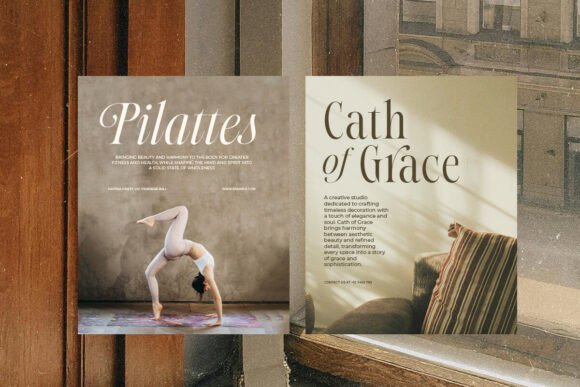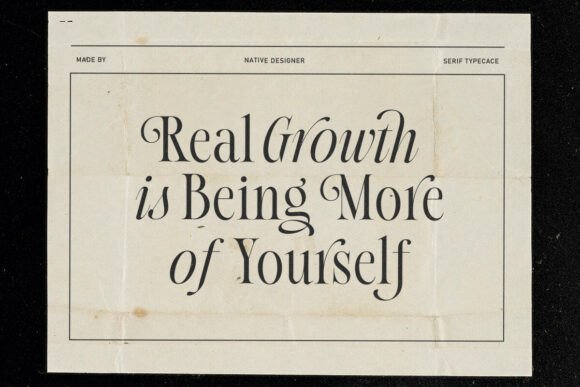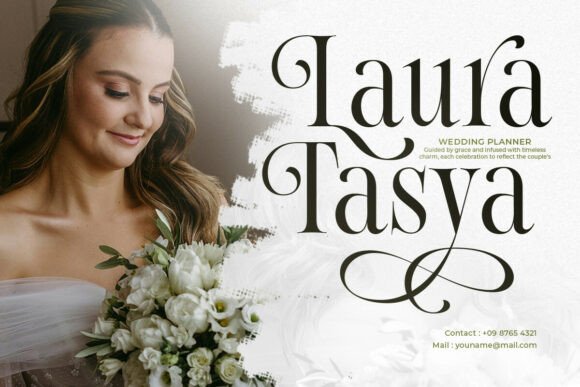
Introduction to Native Designer Font
Native Designer is a classic yet modern serif family that have luxurious, and glamour looks.
With true italic version, you can use this font family for any purposes such as wedding invitations, logo, and branding With stylish alternates in both style, this font will make your design looks stunning and beautiful.
Native Designer Font offers exceptional quality and versatility, making it a valuable addition to your design toolkit. Whether you’re creating for personal projects or commercial use, Native Designer Font delivers professional results.